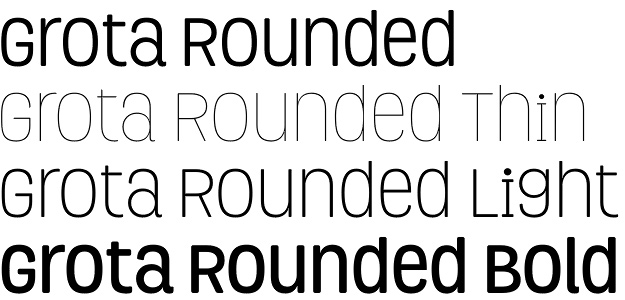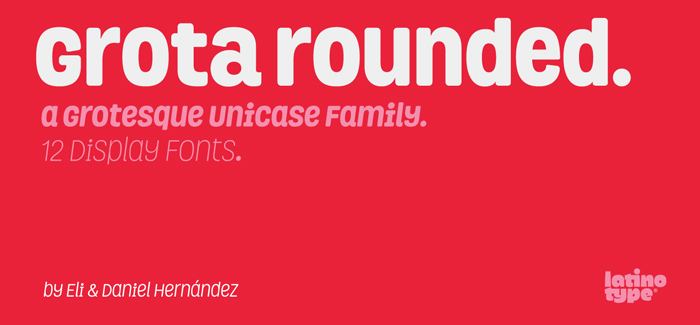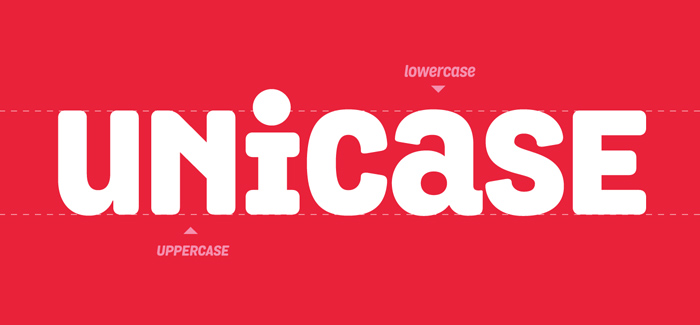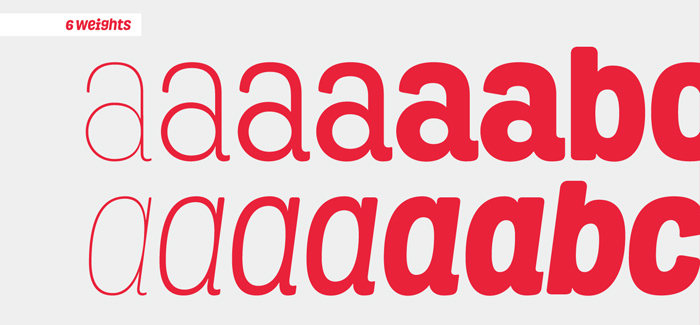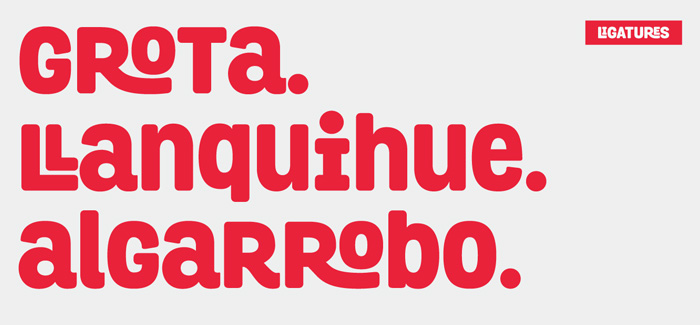
Grota Rounded font
Grota Rounded font is an original rounded unicase font family by Latinotype. It has original style and characters mixing the geometry of sans-serifs with gestures of natural hand-writing. Rounded corners is an excellent addition to its overall look giving Grota Rounded more energy and uniqueness. It’s developed in 6 weights with matching true italics. Grota is fully compatible with open type – you will find a lot of extra features like ligatures, diacritics, alternates etc. It’s perfect choice for logos, brands, magazines, headlines, books, t-shirts as well as screen graphics, web sites, apps and e-books.
Designers: Eli Hernández, Daniel Hernández
Publisher: Latinotype